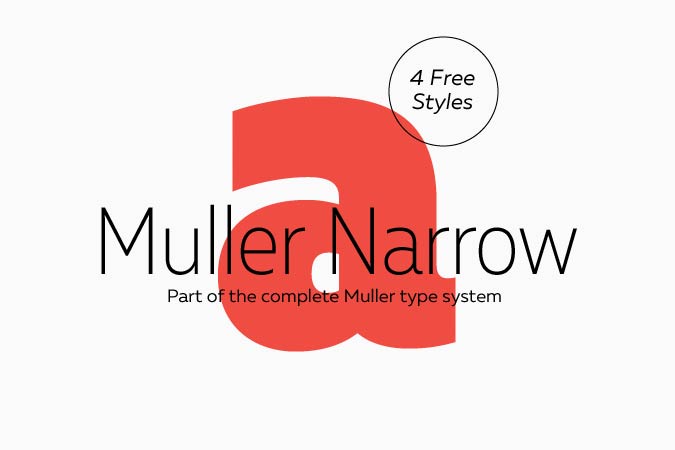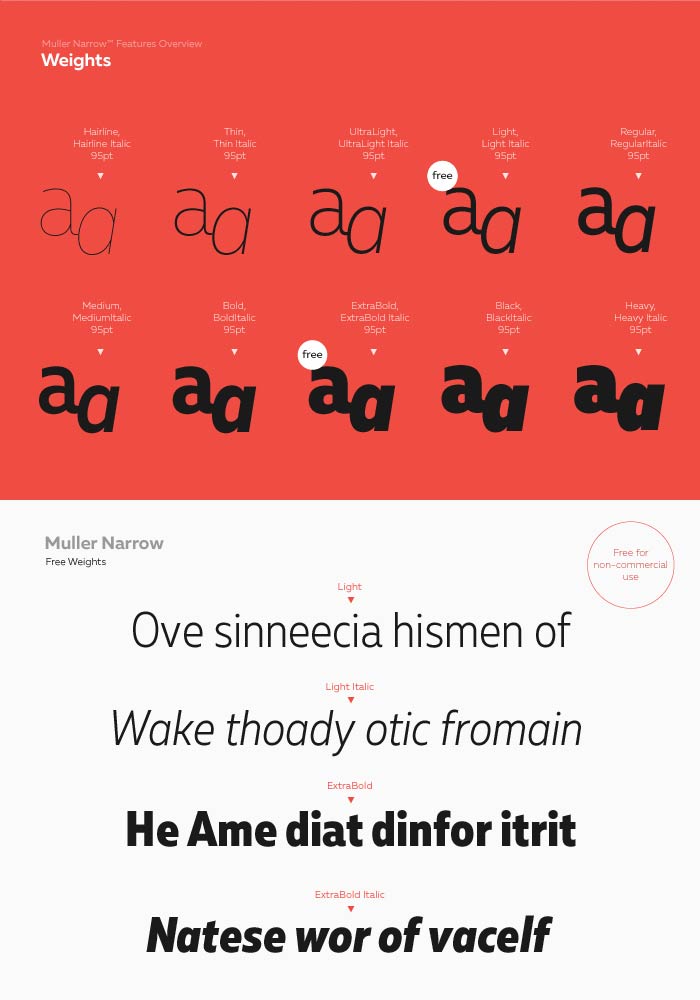
Muller Narrow is the condensed version of the original Muller font family. It comes with huge 10 font weight with accompanying italic version, and 2 weights (Light and Extrabold + italics) are released for free for non-commercial use. The well polished design of the Muller Narrow font family would look great on any clean, professional looking designs.